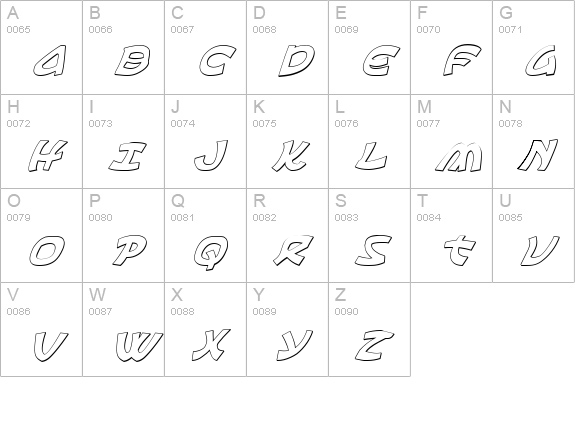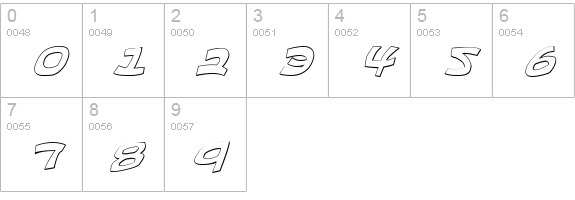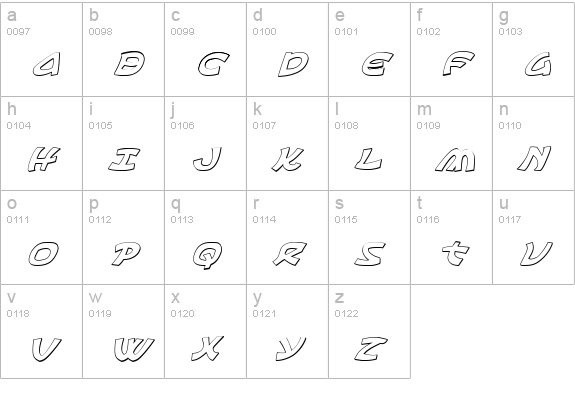
Ephesian 3D Italic is a distinctive, italic variant in the Ephesian typeface family \xE2\x80\x94 well suited to design and typography projects.
Ephesian 3D Italic font is a stunning and modern typeface that brings a unique depth and dimension to your design projects. The sleek and elegant italics of this font add a touch of sophistication and style to any text. With its intricate 3D effect, Ephesian stands out and grabs attention, making it perfect for headlines, logos, and branding materials. What makes Ephesian 3D Italic font even more appealing is that it is available for free download at FontsMarket.com. Now you can elevate your designs with this eye-catching font without any cost. Don't miss out on this fantastic opportunity to enhance your creative work with the striking Ephesian 3D Italic font.